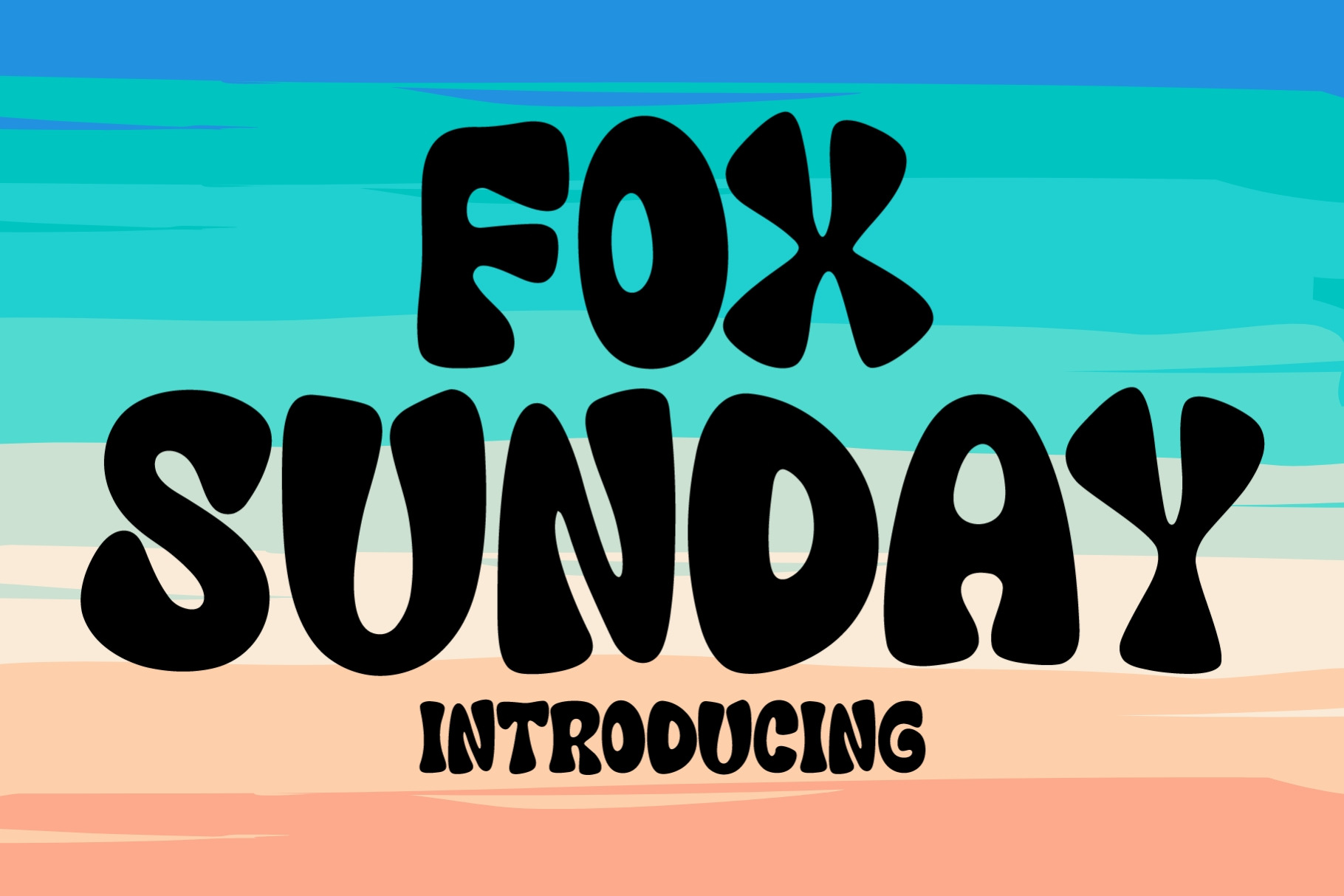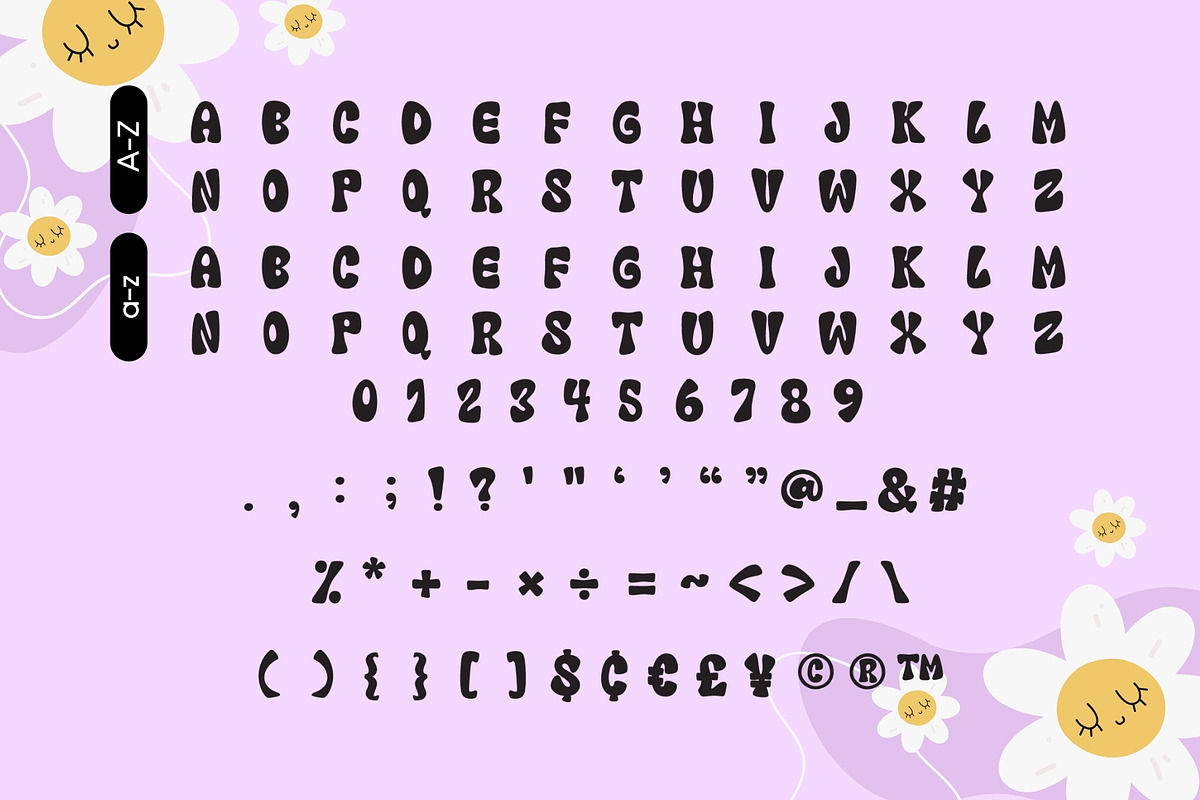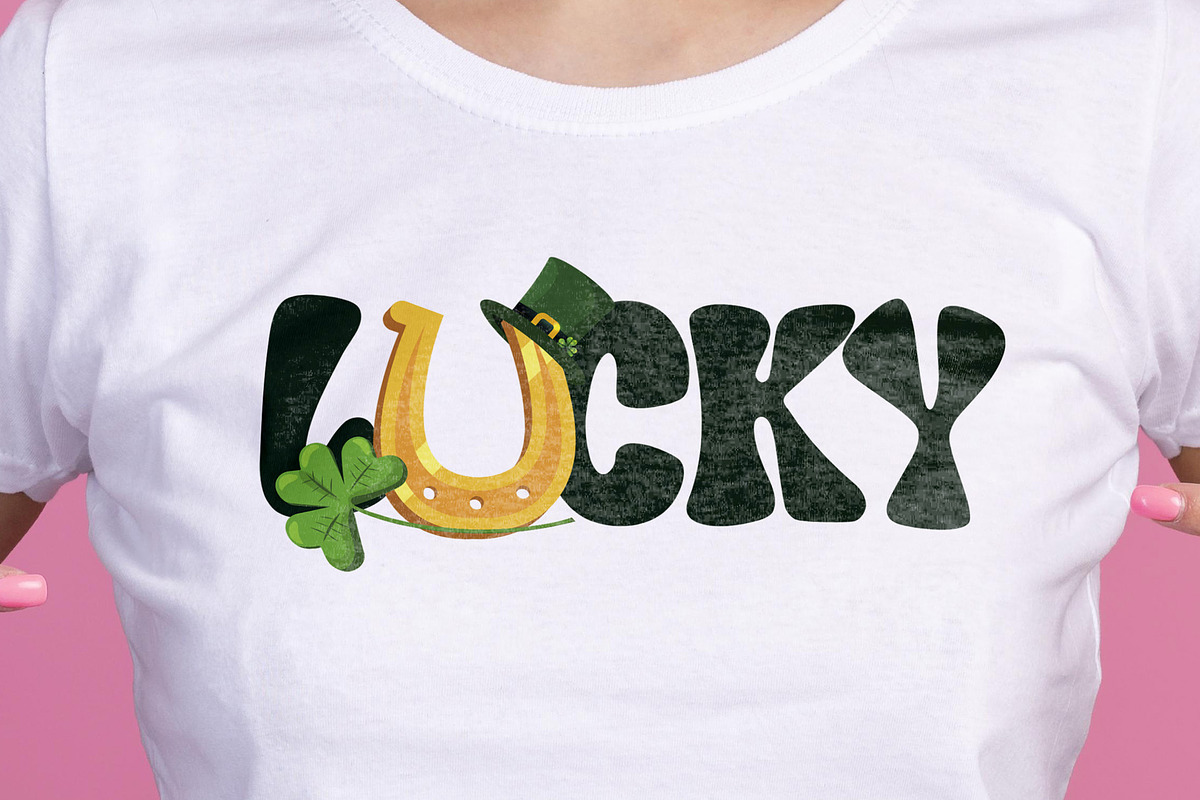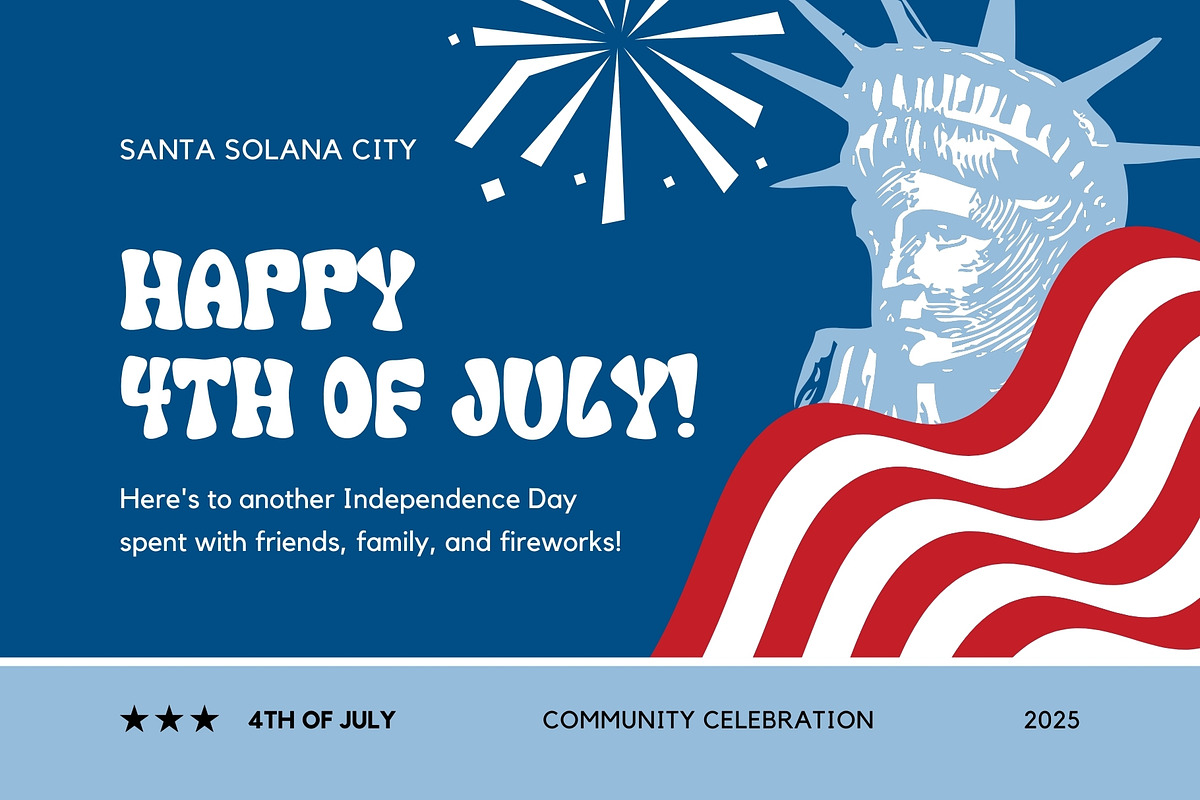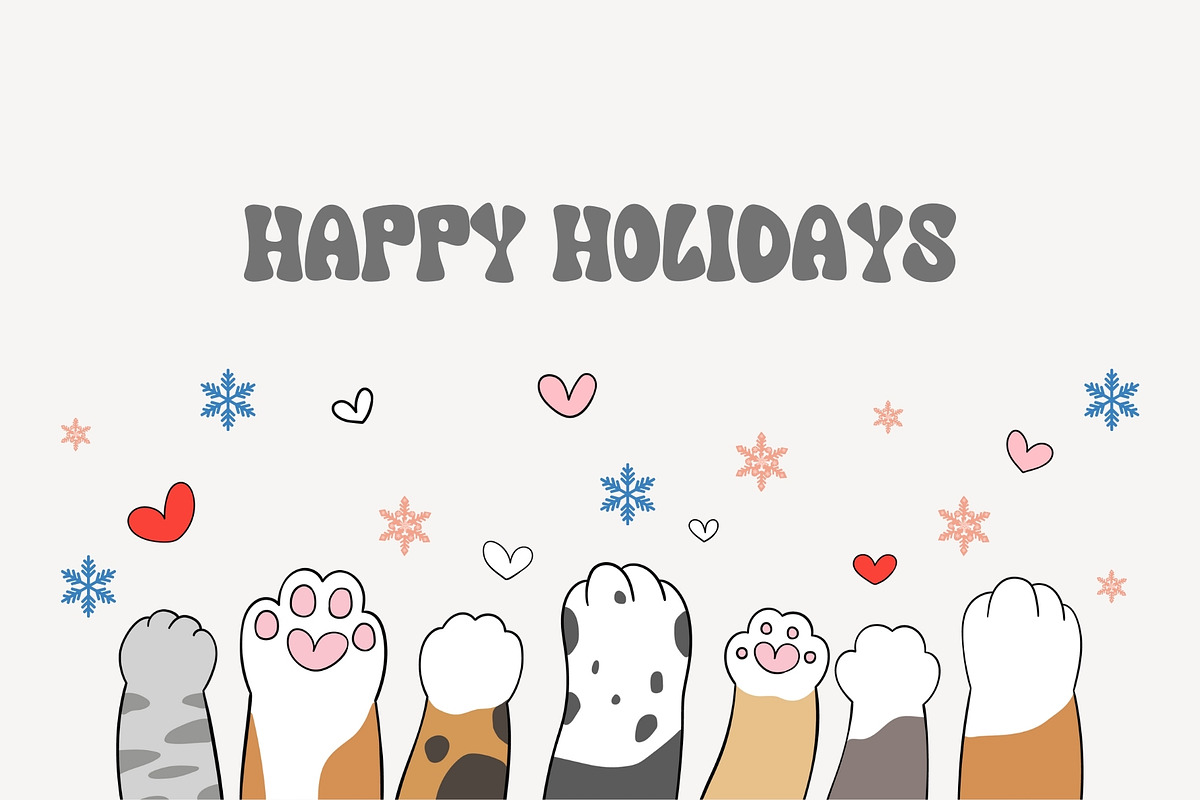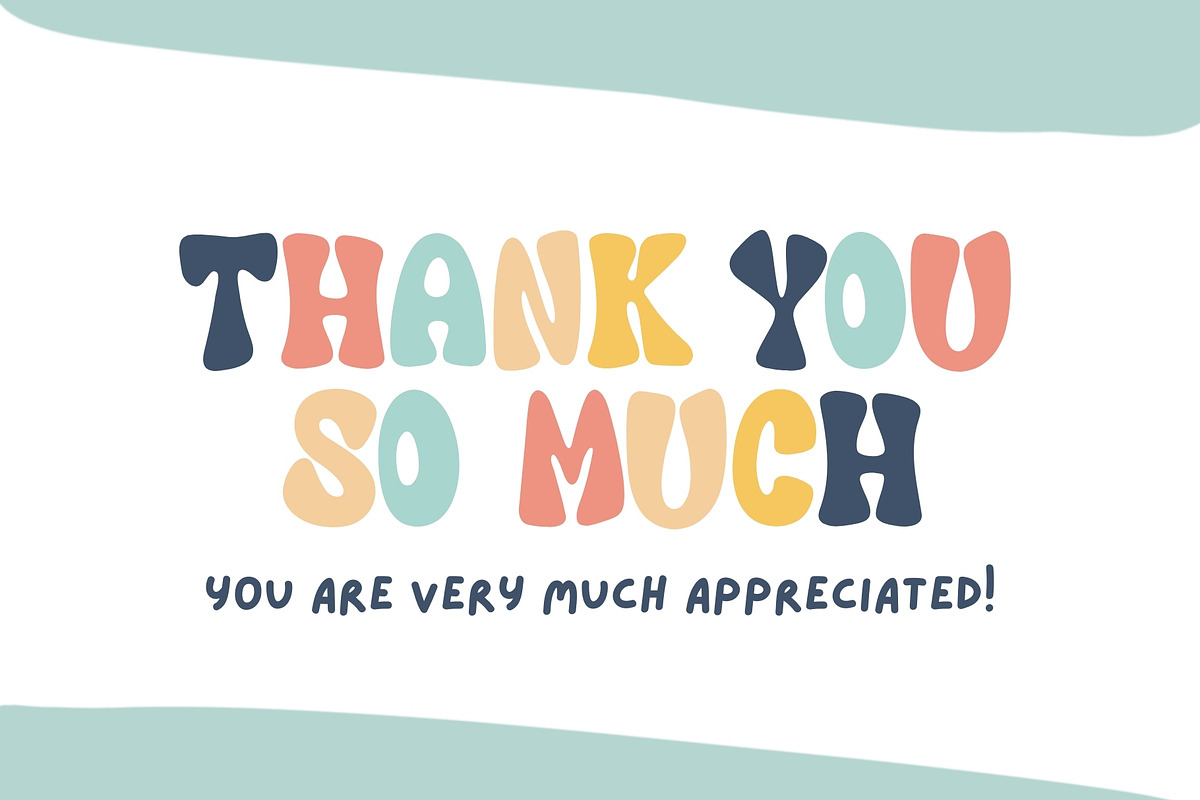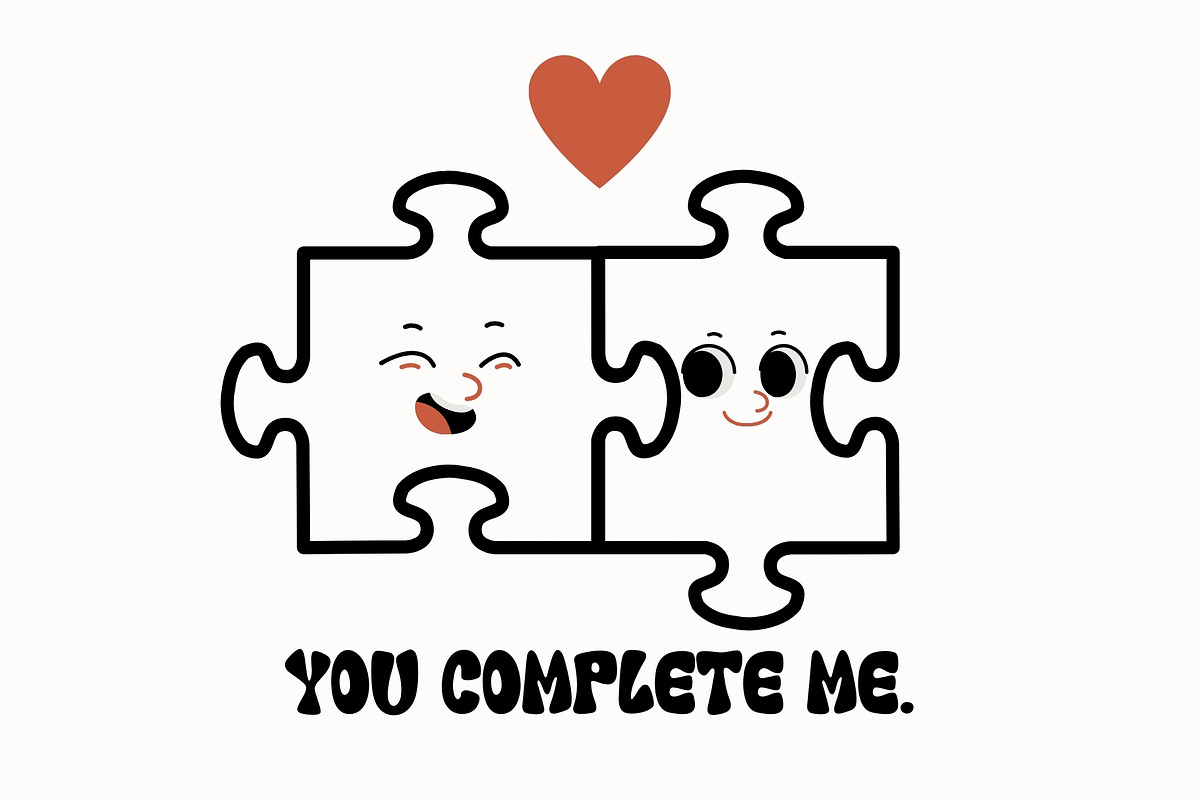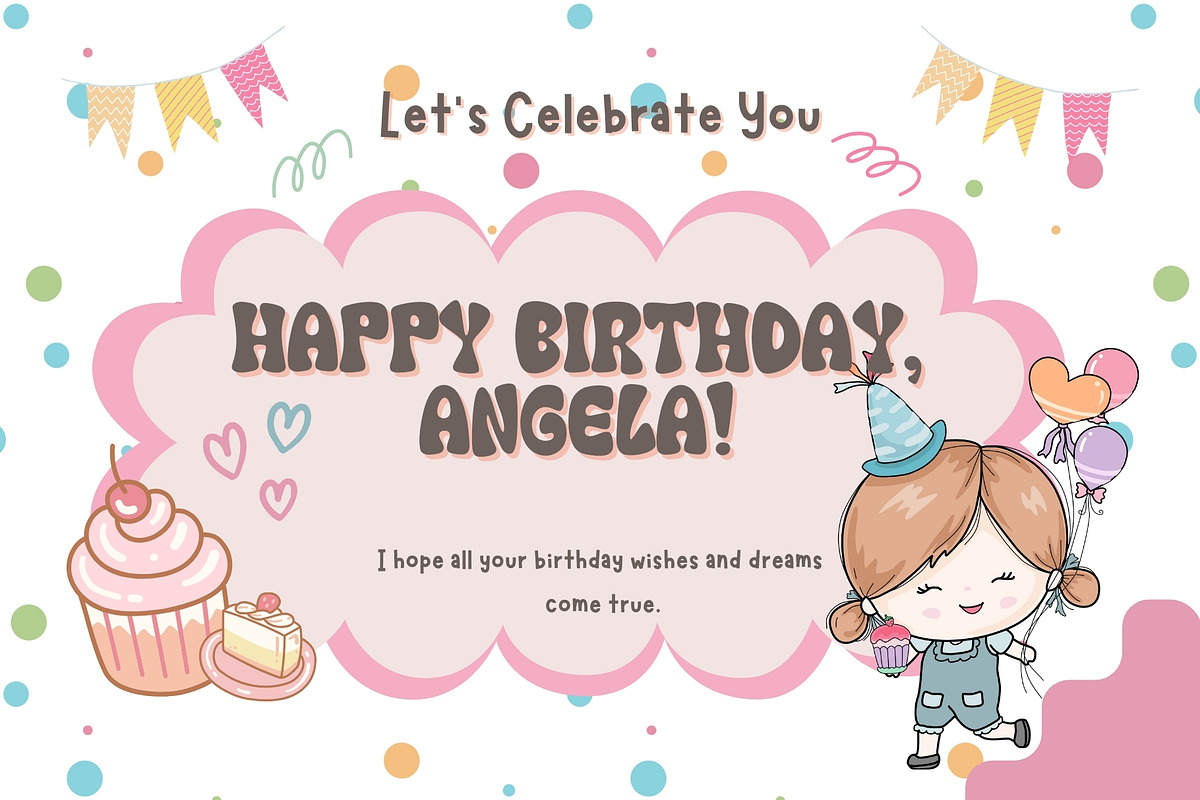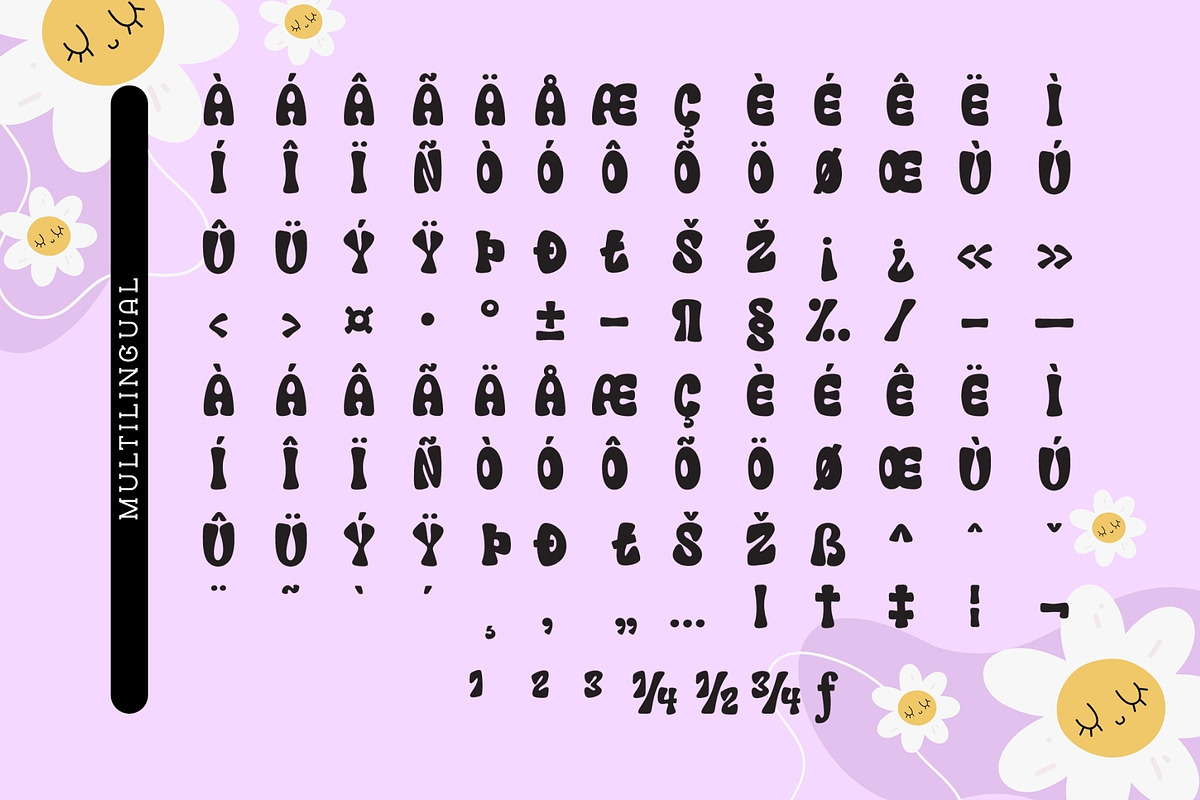
Fox Sunday Font
Striking a delightful balance between whimsical and retro, Fox Sunday is an upbeat display font that embodies charm and individuality. Its playful undertones pepper every crevice of its design, instantly transporting one back to the groovy era, yet with a fresh twist. Radiating a distinctive chic spirit, Fox Sunday is a dynamic fit for infusing T-shirts, stickers, and children's book covers with a dash of verve. It's not just a typeface but a statement of style, making every social media post and creative project a standout with its garb of fun and funk. Harness the buoyant energy of Fox Sunday and let your designs bask in its unique rhythm and flair.